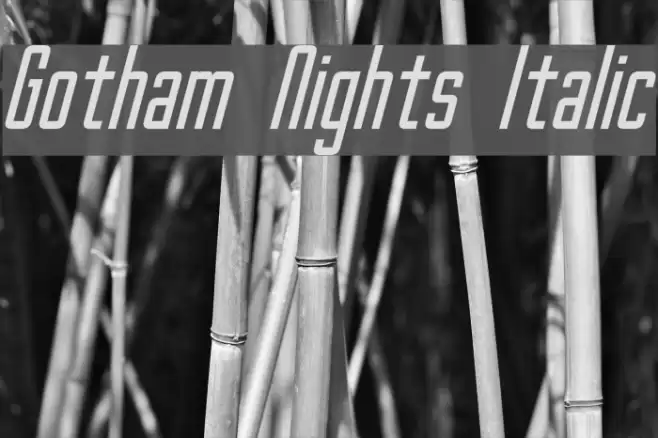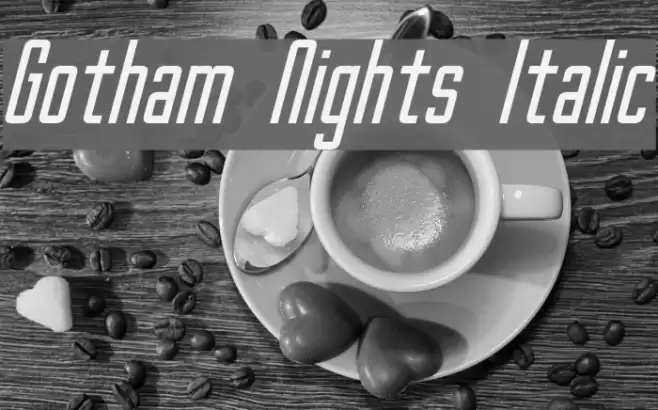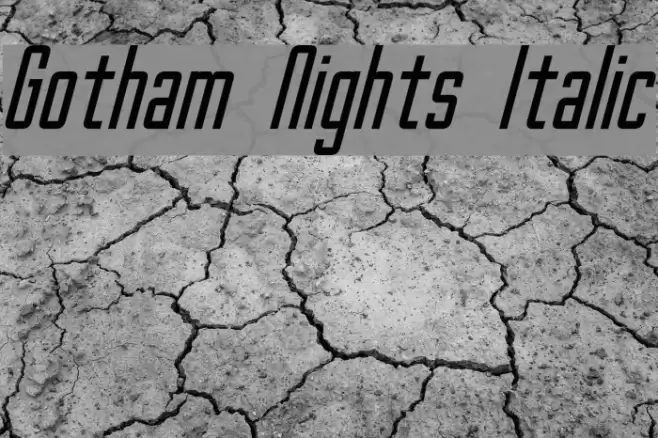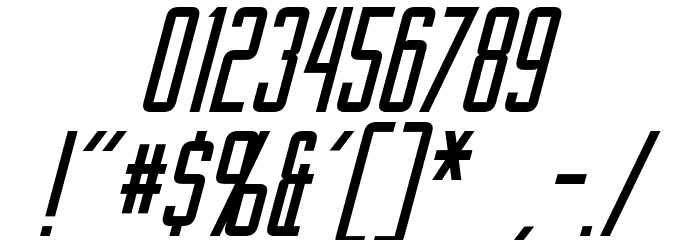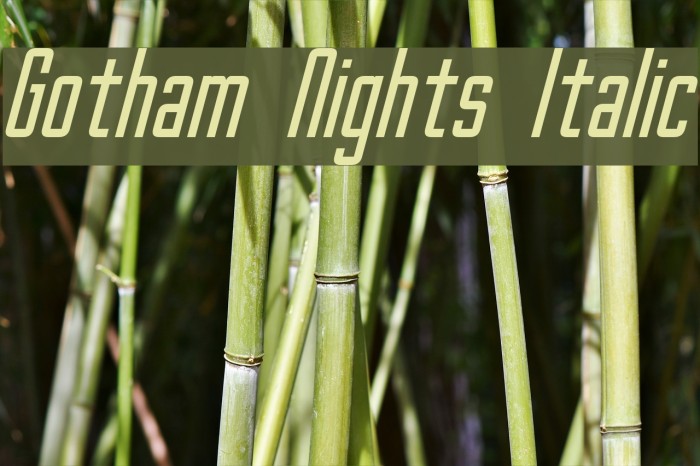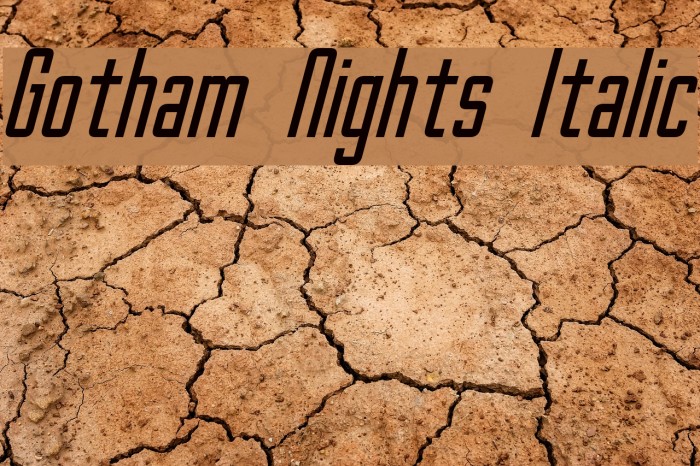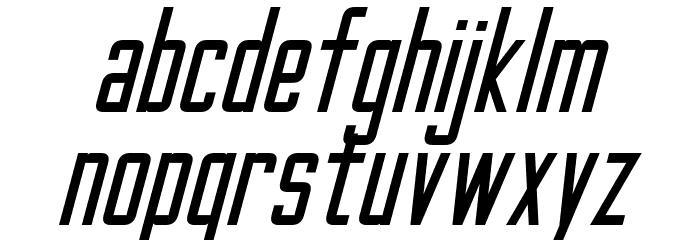
Gotham Nights Italic
This font features a sleek, modern design with a distinct italic slant, giving it a dynamic and forward-moving appearance. The characters are tall and narrow, emphasizing verticality and elegance. The strokes are consistent in width, providing a clean and uniform look. The uppercase letters are bold and commanding, while the lowercase letters maintain a cohesive flow. The numerals are clear and easily readable, matching the overall style of the alphabet. Special characters are well-integrated, maintaining the font's aesthetic. This font's design is ideal for projects that require a contemporary and stylish touch.
A modern, italic font with tall, narrow characters and consistent stroke width.
- Width: Condensed